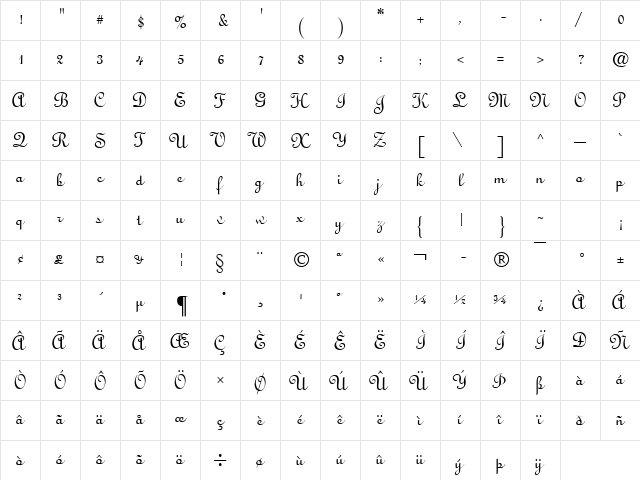
Oldscript Regular
Design Context for Oldscript Typeface
Oldscript brings a calligraphic fluidity to the page — its connecting strokes and expressive curves give it an unmistakably human quality.
Font Pairing: Combine Oldscript with a simple geometric sans for maximum contrast — the tension between flowing curves and clean structure is a classic typographic pairing.
Pro Tip: Use Oldscript for short runs of text — names, titles, or taglines. Extended body copy in script faces tires the eye quickly.